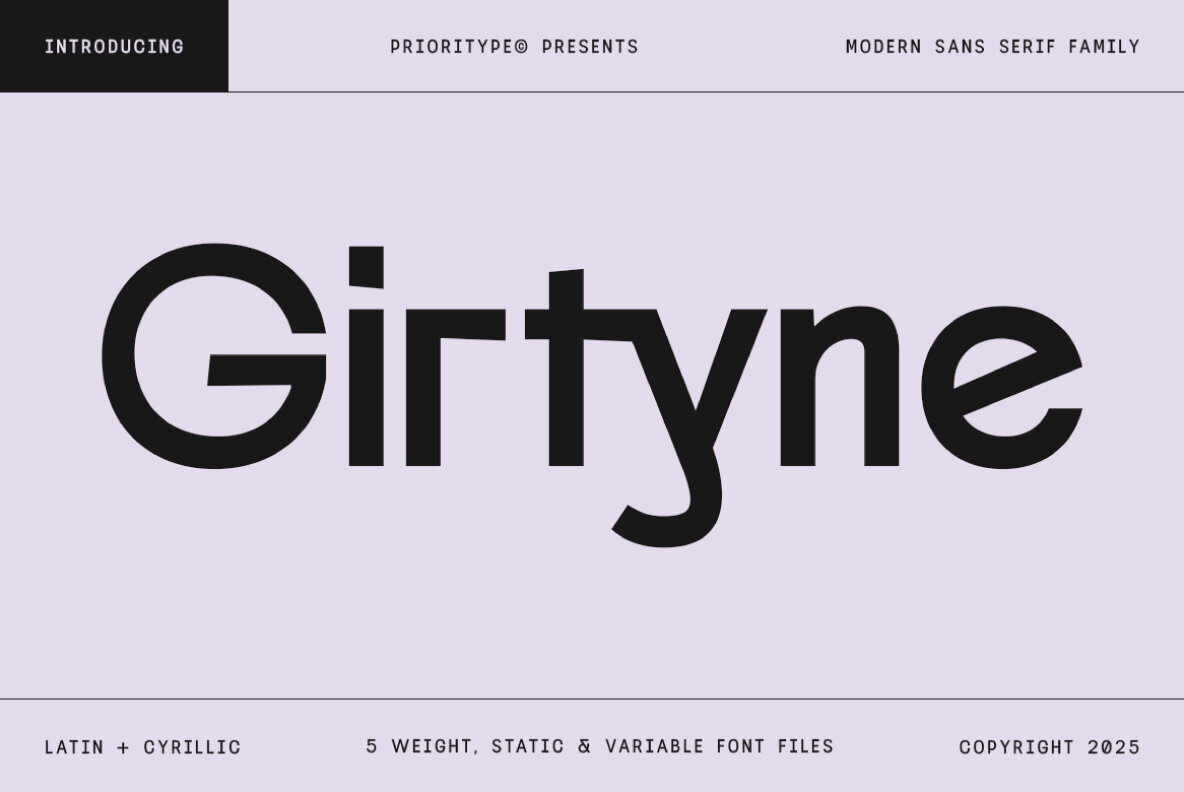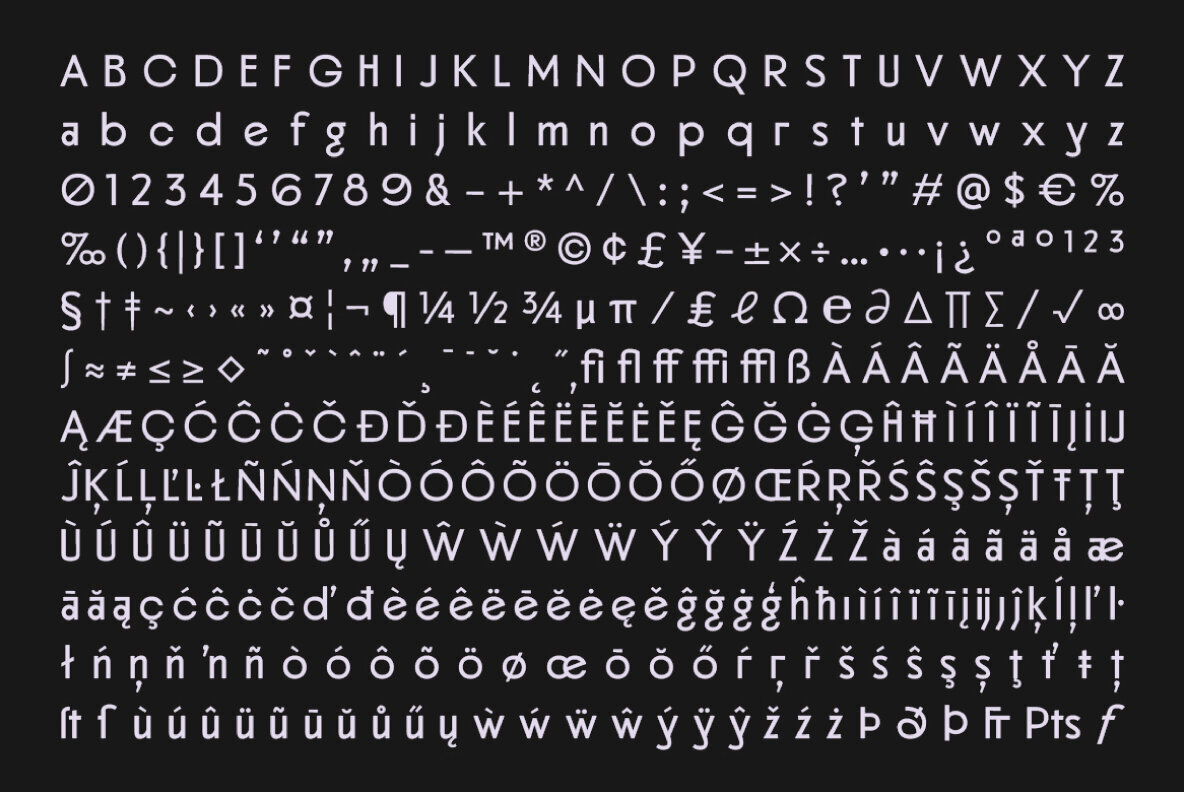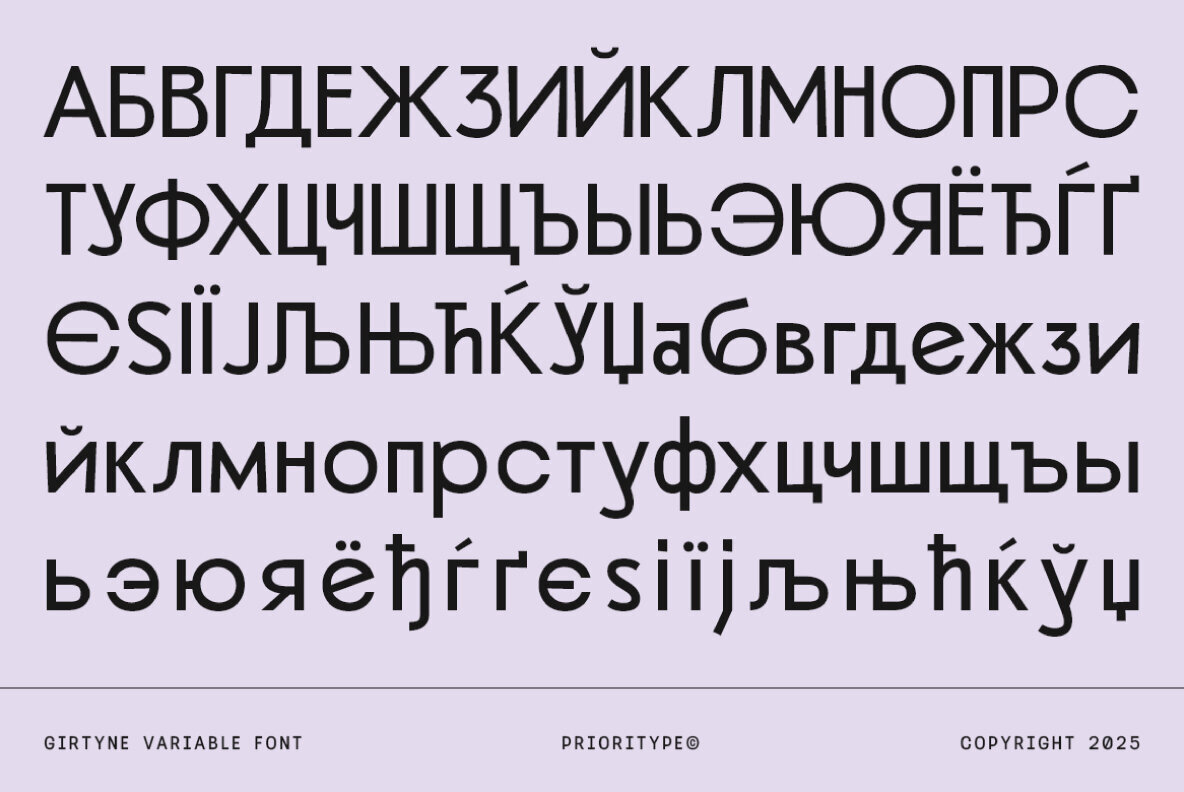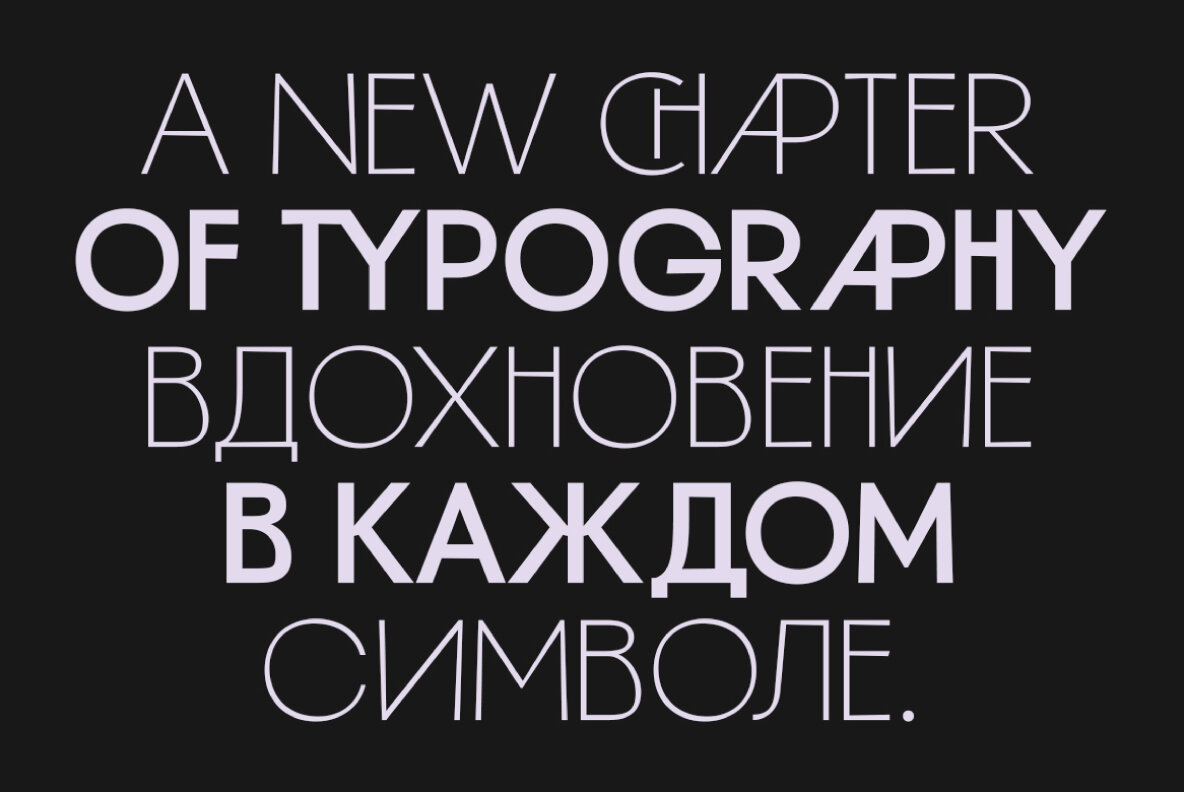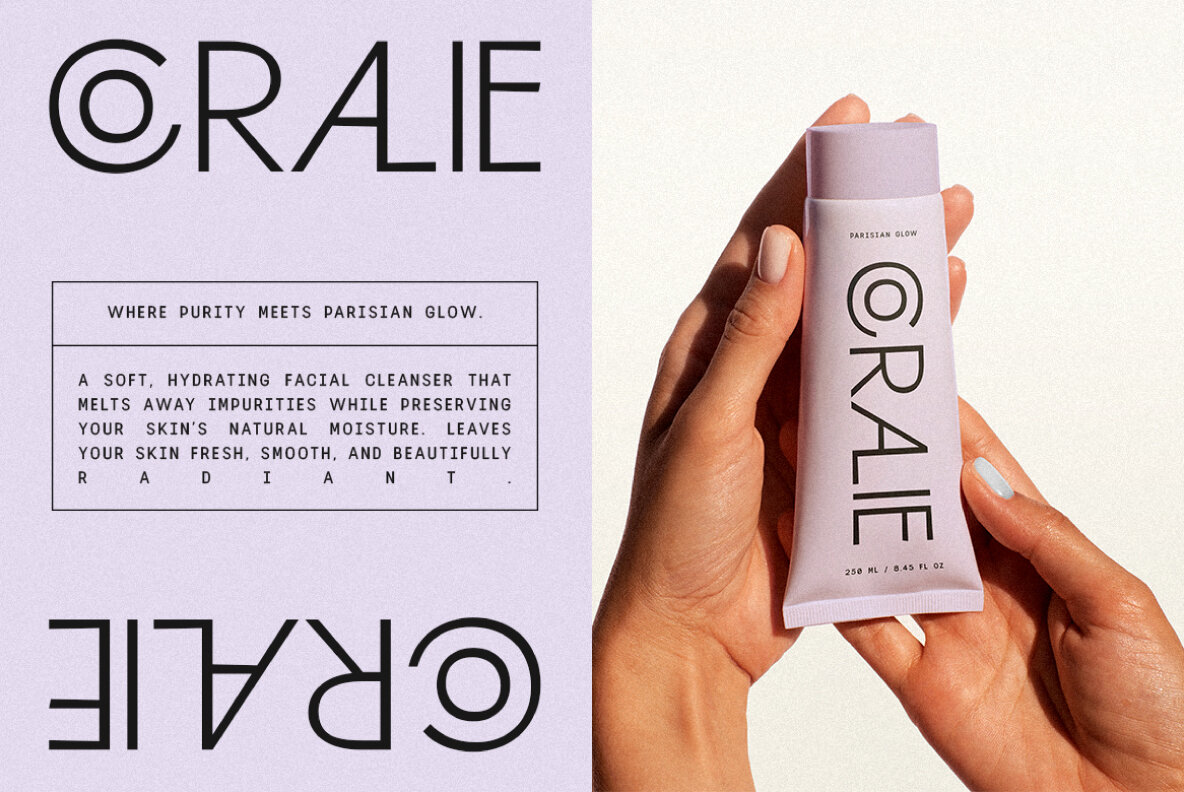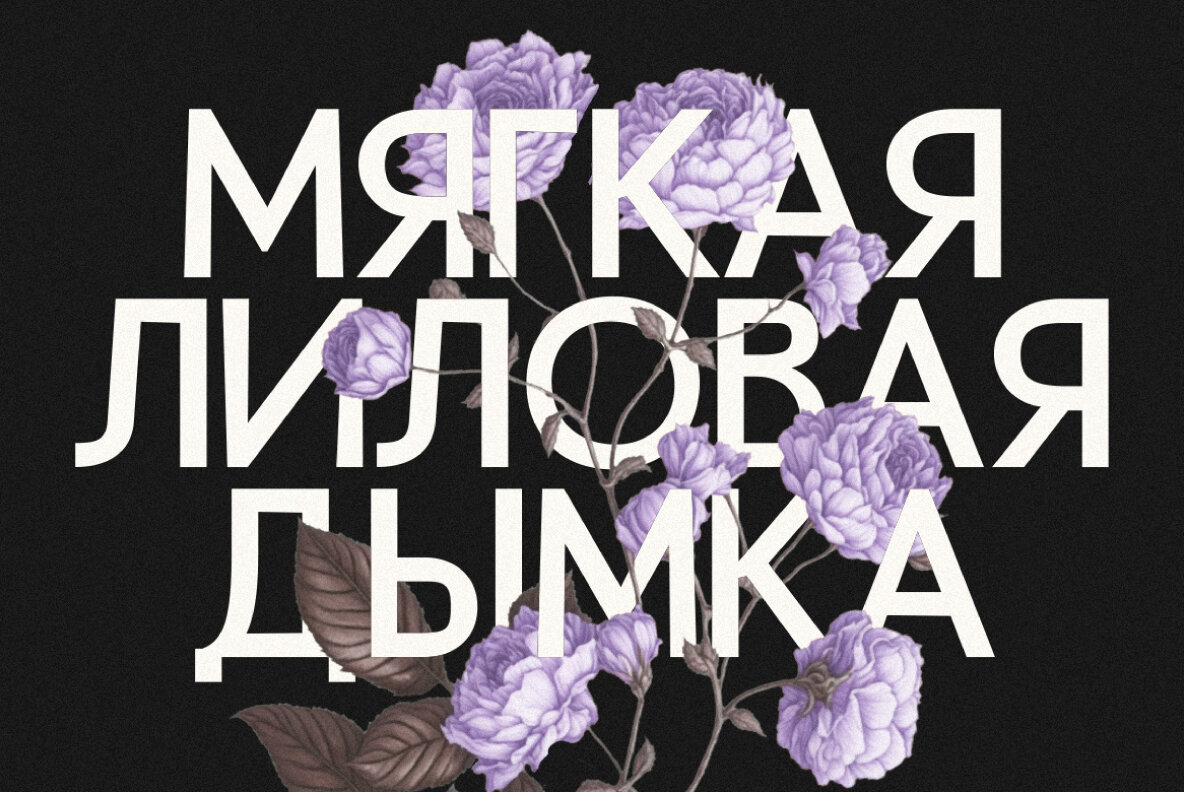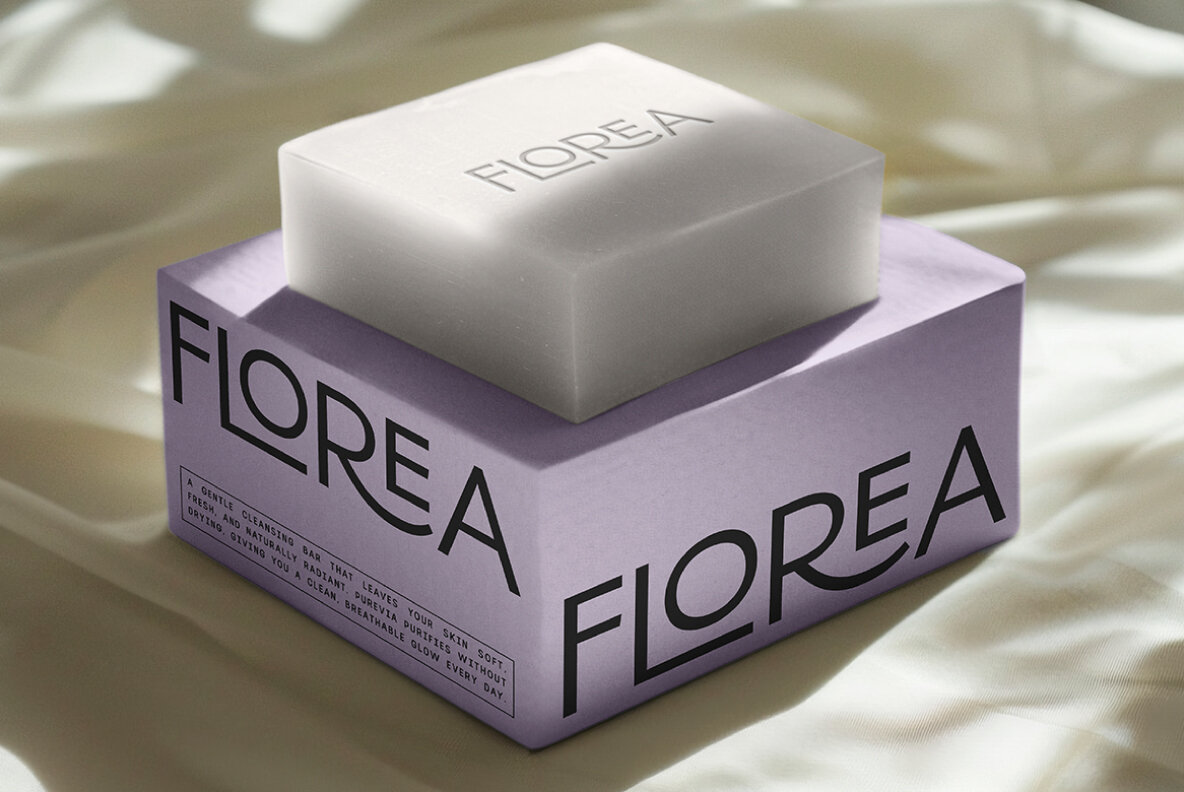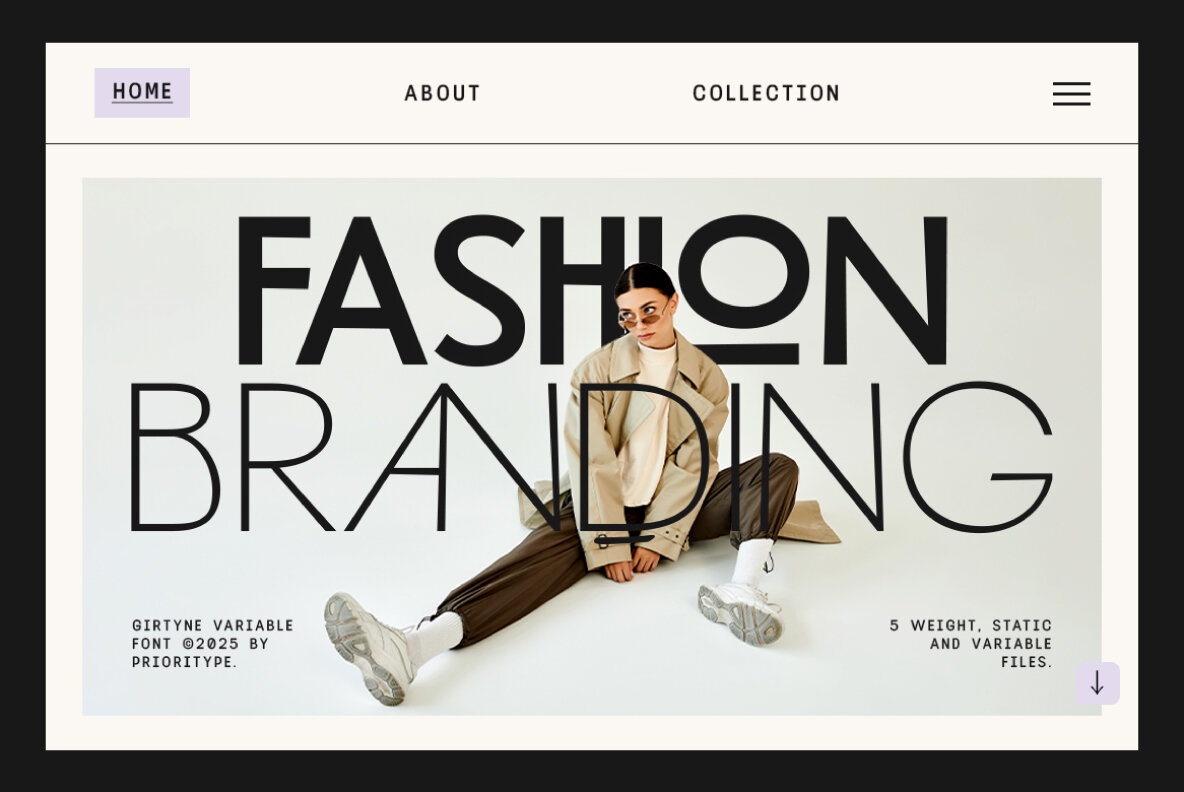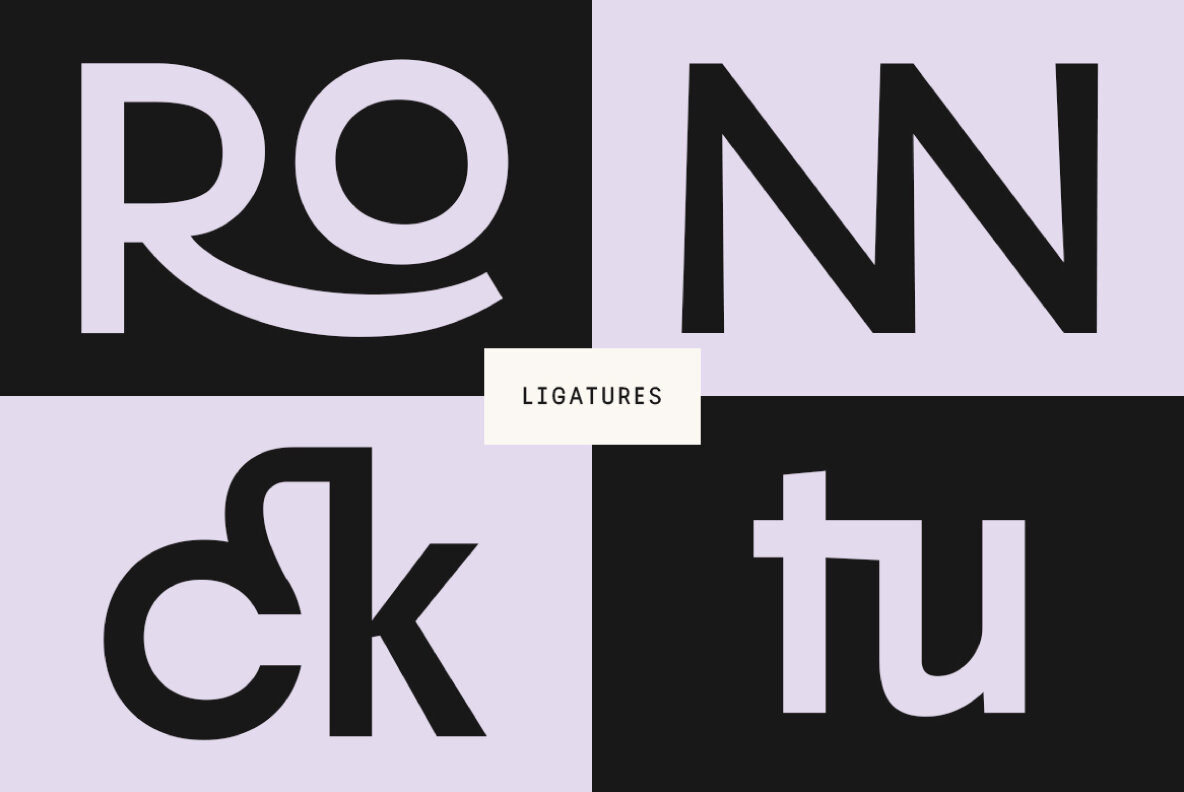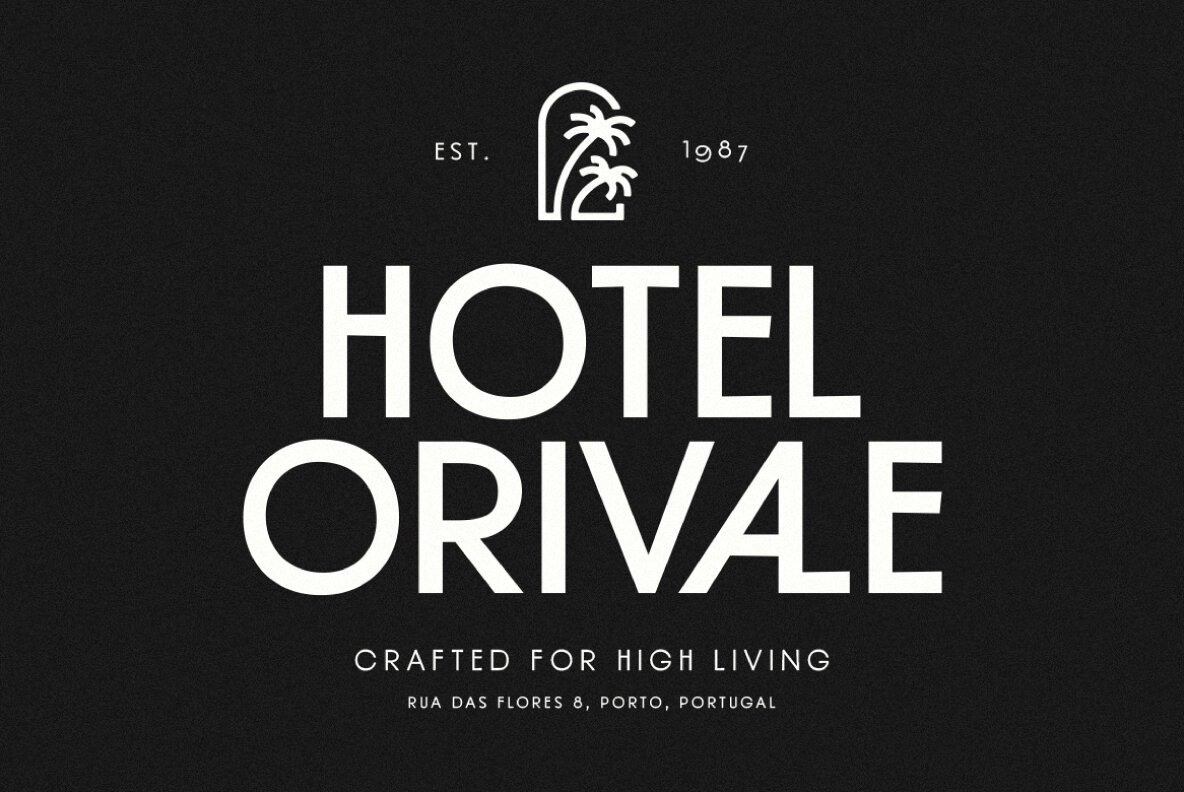
Girtyne Font
Girtyne stands out as a modern classic sans serif designed for clarity, elegance, and adaptability—qualities which make it an asset in graphic design projects. Its precise geometric structure is softened by subtle humanist details, creating a typeface that feels both contemporary and enduring. This balance allows Girtyne to perform with confidence across branding, editorial spreads, digital interfaces, packaging, and display settings. The typeface arrives with five meticulously developed weights and a flexible Variable Font, allowing designers to dial in tone and weight with accuracy. Whether a project calls for an understated touch or greater visual emphasis, Girtyne adapts fluidly without sacrificing character. Recognizing the needs of a global audience, Girtyne includes an extended character set with full Cyrillic support. The result is a font that delivers sophistication and versatility, while retaining the warmth found in classic sans serif forms. Its design is particularly well-suited to those who require both style and usability at every touchpoint.Girtyne: A Modern Classic Sans Serif for Versatile Design